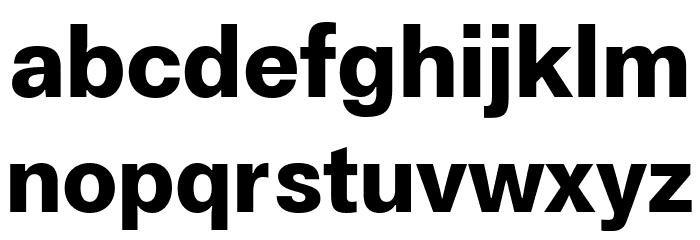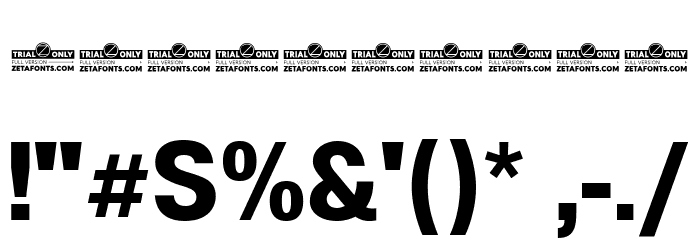
Boring Sans A Trial Bold Font
This font features a bold and clean sans-serif style, characterized by its strong geometric shapes and uniform stroke widths. The uppercase and lowercase letters maintain a consistent height and width, providing a balanced and harmonious appearance. The numerals and special characters are designed with the same boldness, ensuring readability and impact. Its simplicity and clarity make it versatile for various design applications.
A bold, clean sans-serif font with geometric shapes and uniform strokes.
- Font: Boring Sans A Trial Bold
- Proposed Projects: Ideal for branding, advertising, headlines, and digital interfaces where clarity and impact are essential.
- Category: Sans-Serif
- Use Case: Headlines, Logos, Digital interfaces